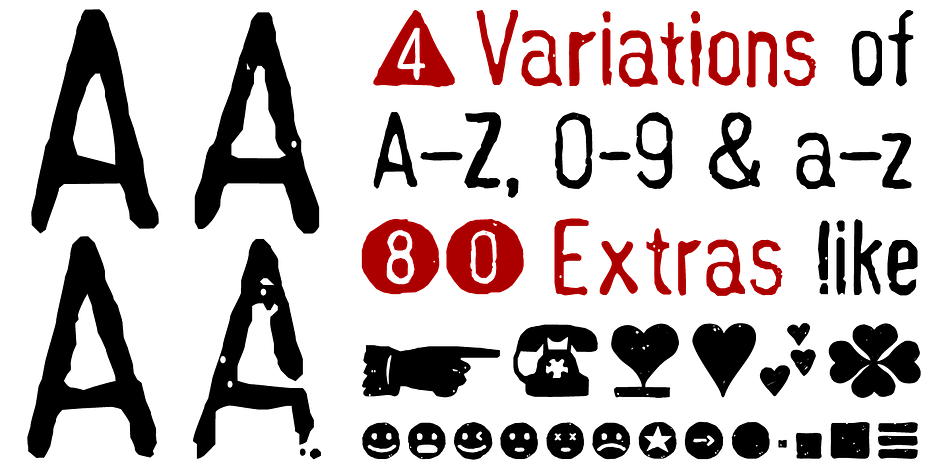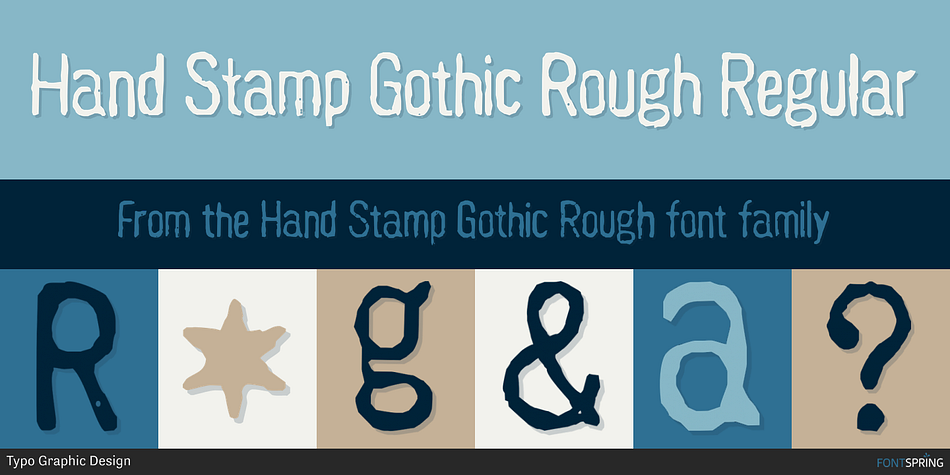
Hand Stamp Gothic Rough Regular
Designed by Manuel Viergutz, Hand Stamp Gothic Rough is a grunge font family. This typeface has two styles and was published by Typo Graphic Design.
Hand Stamp Gothic Rough is based on real vintage rubber stamp letters from Germany.
Hand Stamp Gothic Rough is based on real vintage rubber stamp letters from Germany. A classic American gothic face mixed with a modern condensed sans serif type. Rough & dirty with a authen­tic hand stamped look for a warm analogue vintage charm.
It star­ted ana­lo­gous with only a few rubber stamps and finally it was digi­tal 776 gly­phs. With 4 × A–Z, 4 × 0–9, 4 × a–z and many other alternative glyphs like @. Plus modern OpenType Features like contextual alternates (automatic generated loop for letter variation). The different variations from the dynamic pressure by hand inten­ded to show the hand-made nature and crea­tes a live­li­ness in the display font.
The font has 80 decorative extras in the form of symbols & dingbats like arrows, hearts, smileys, stars, further numbers, lines & shapes. A range of figure set options like oldstyle figures, lining figures, superiors & inferiors.
Additionally stan­dard liga­tures, deco­ra­tive liga­tures (type the word “show” for ☛ and “love” for ❤ … ), Ver­sal Eszett (German Capital Sharp S) and many emojis & symbols.
■ Font Name: Hand Stamp Gothic Rough
■ Font Weights: Regu­lar & Dirty (Bold)
■ Font Cate­gory: Dis­play for head­line size
■ Glyph Set: 776 glyphs
■ Lan­guage Sup­port: Basic Latin/English let­ters, Cen­tral Europe, West European diacritics, Turkish, Bal­tic, Roma­nian, OpenType Features, Dingbats & Symbols
■ Spe­cials: Alter­na­tive let­ters, sty­listic sets, automatic con­text­ual alter­nates via Open­Type Fea­ture (4× different versions of A–Z & 0–9 + a–z), Euro, kerning pairs, stan­dard & deco­ra­tive liga­tures, Ver­sal Eszett (German Capital Sharp S), 80 extras like Dingbats & Symbols, arrows, hearts, emojis/smileys, stars, further numbers, lines & shapes.
■ Design Date: 2016
■ Type Desi­gner: Manuel Vier­gutz